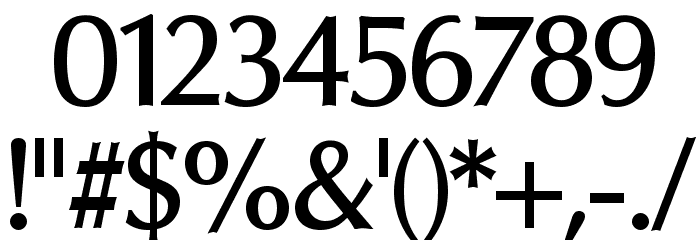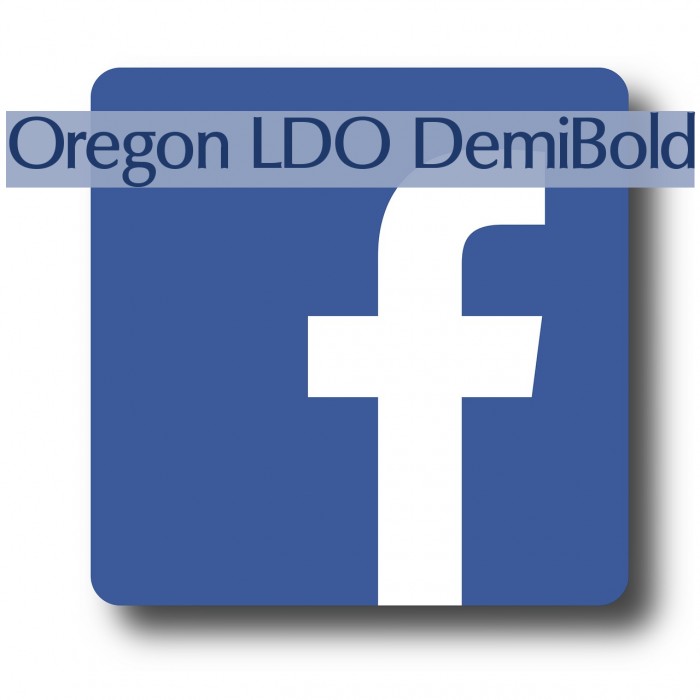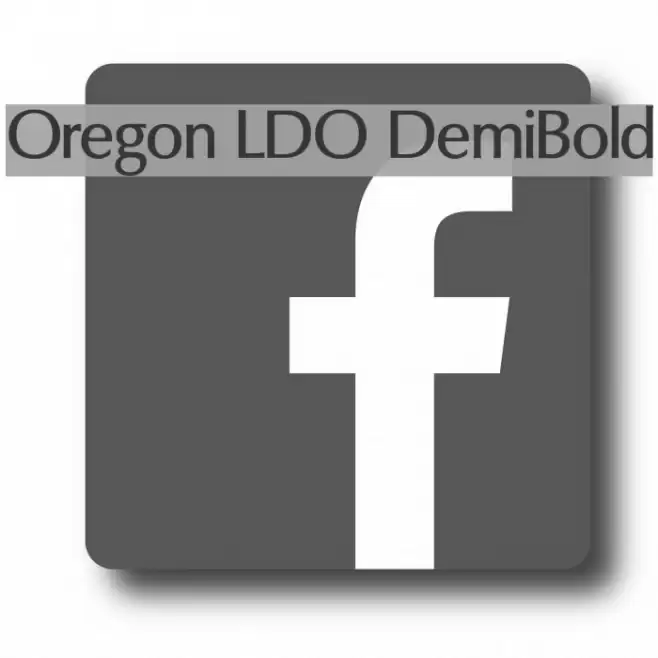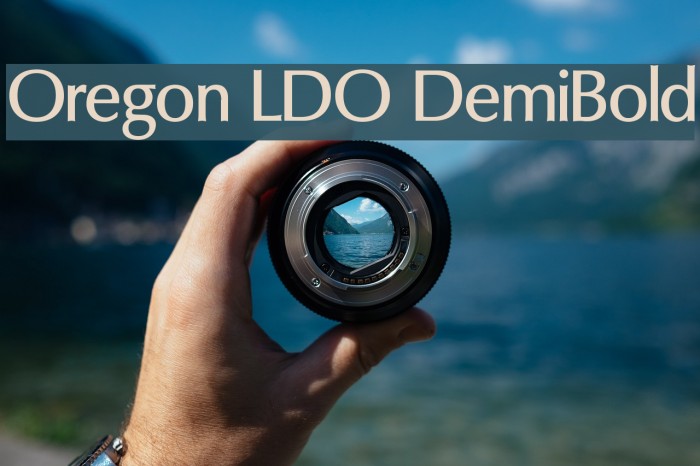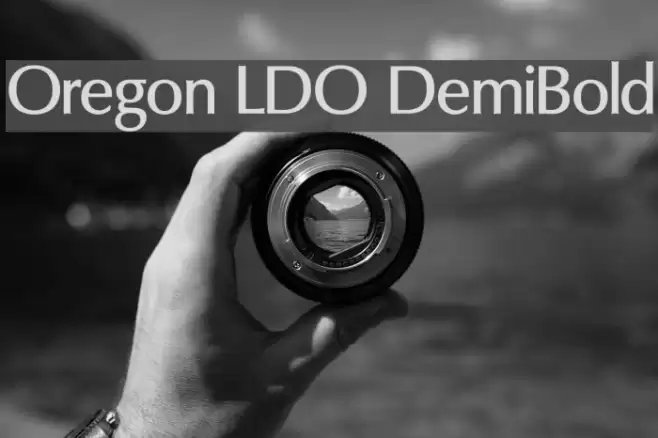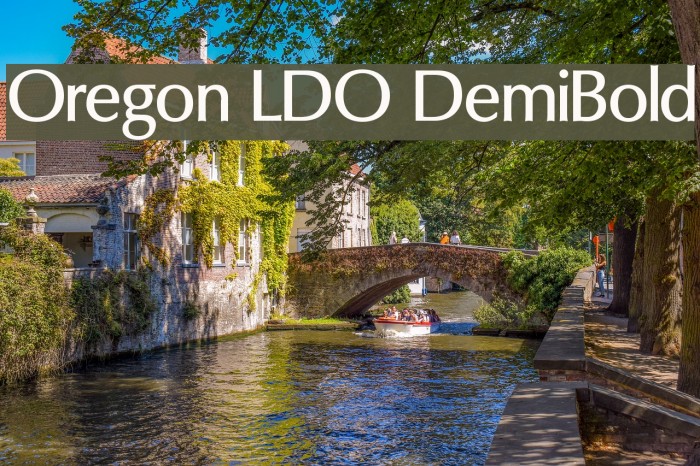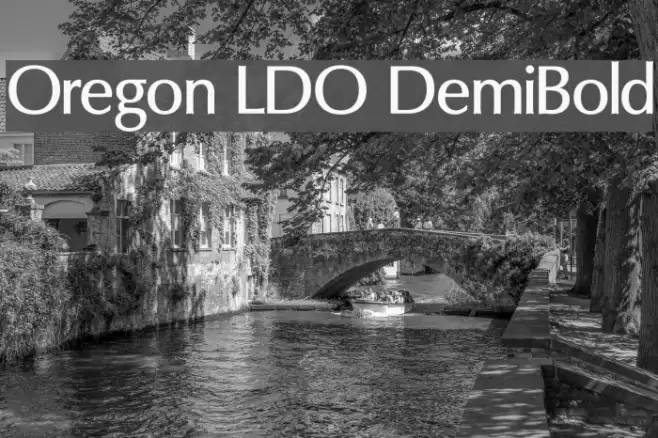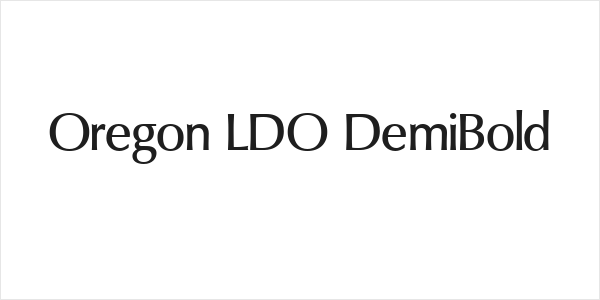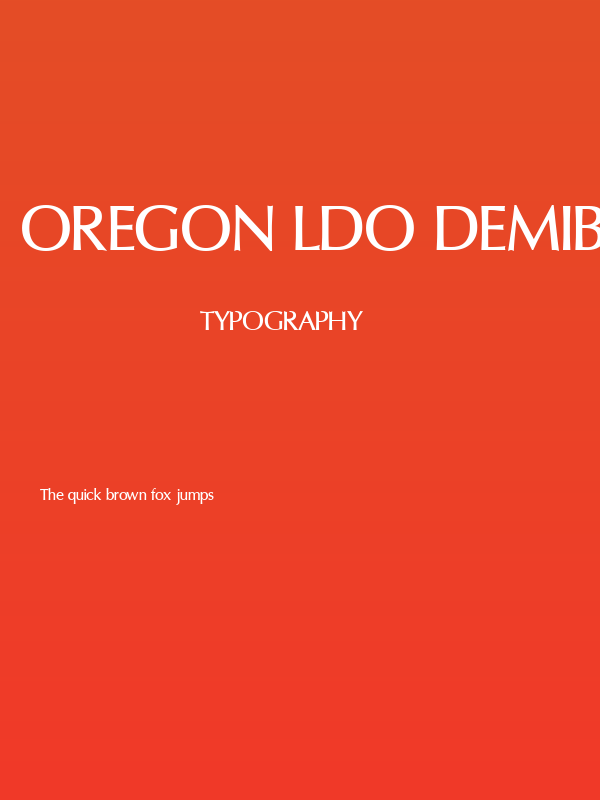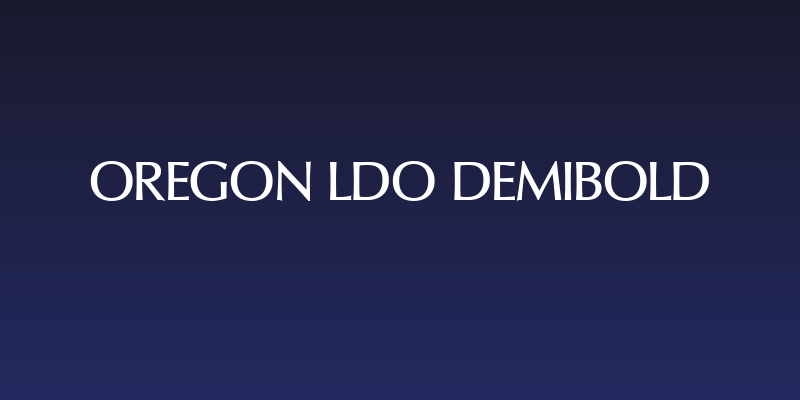
Oregon LDO DemiBold Font
Oregon LDO DemiBold Description
This font features a clean and modern design with a strong presence. The uppercase letters are bold and assertive, while the lowercase letters maintain a consistent and balanced appearance. The numerals are clear and easily distinguishable, making them suitable for various applications. The special characters are well-integrated, providing a cohesive look across all glyphs. The overall style is versatile, making it suitable for both digital and print media. The strokes are consistent in thickness, contributing to a harmonious and professional appearance.